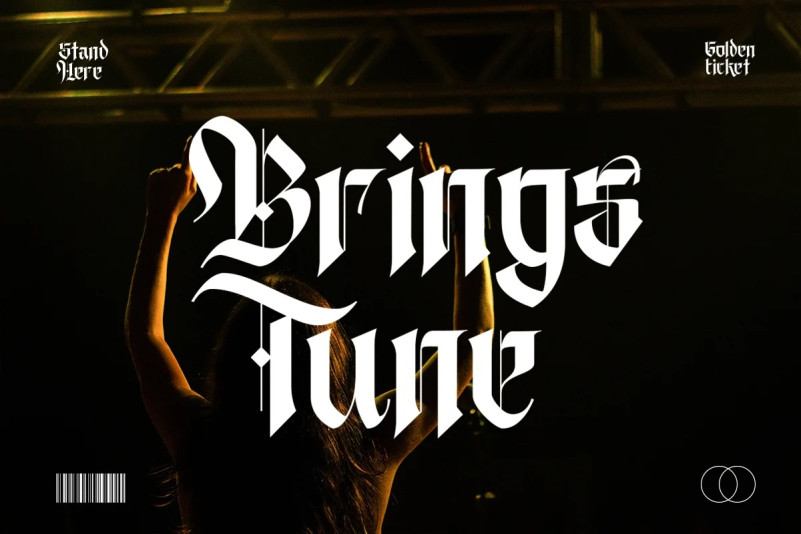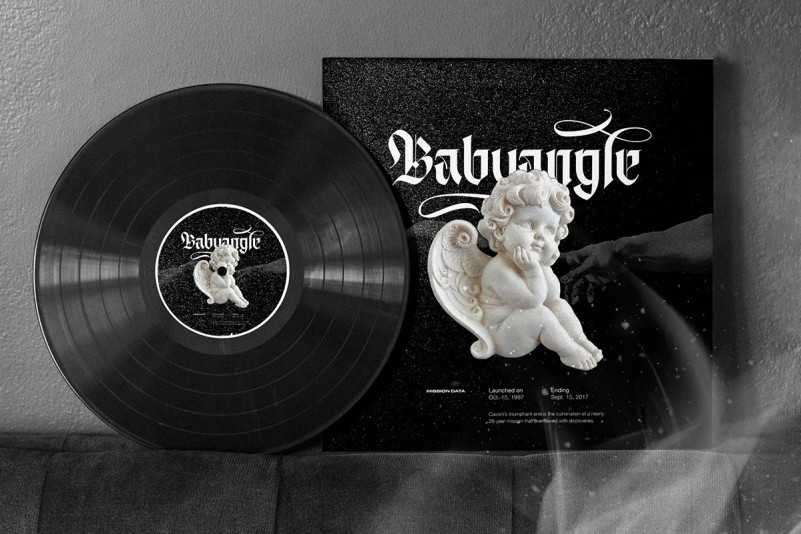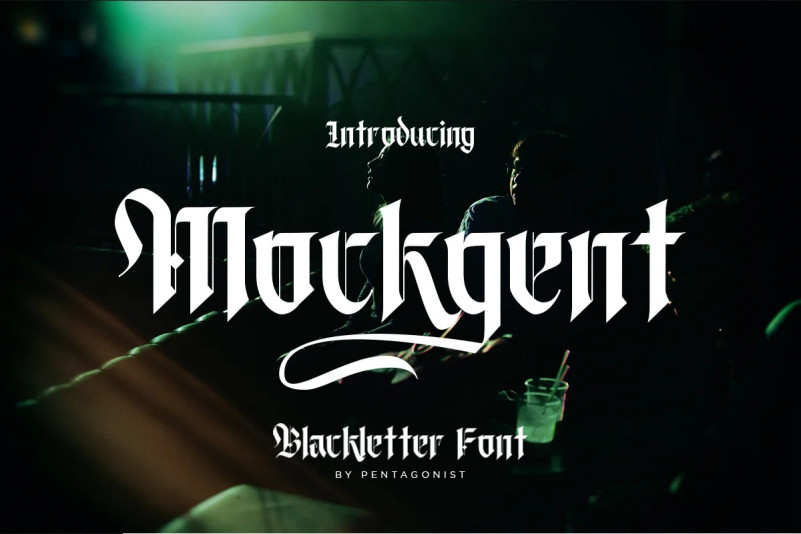
Mockgent Font
Mockgent Font is a sleek and Gothic inspired Blackletter font. You can use it as a logo, badge, insignia, packaging, headline, poster, t-shirt/apparel, greeting card, and wedding invitation.